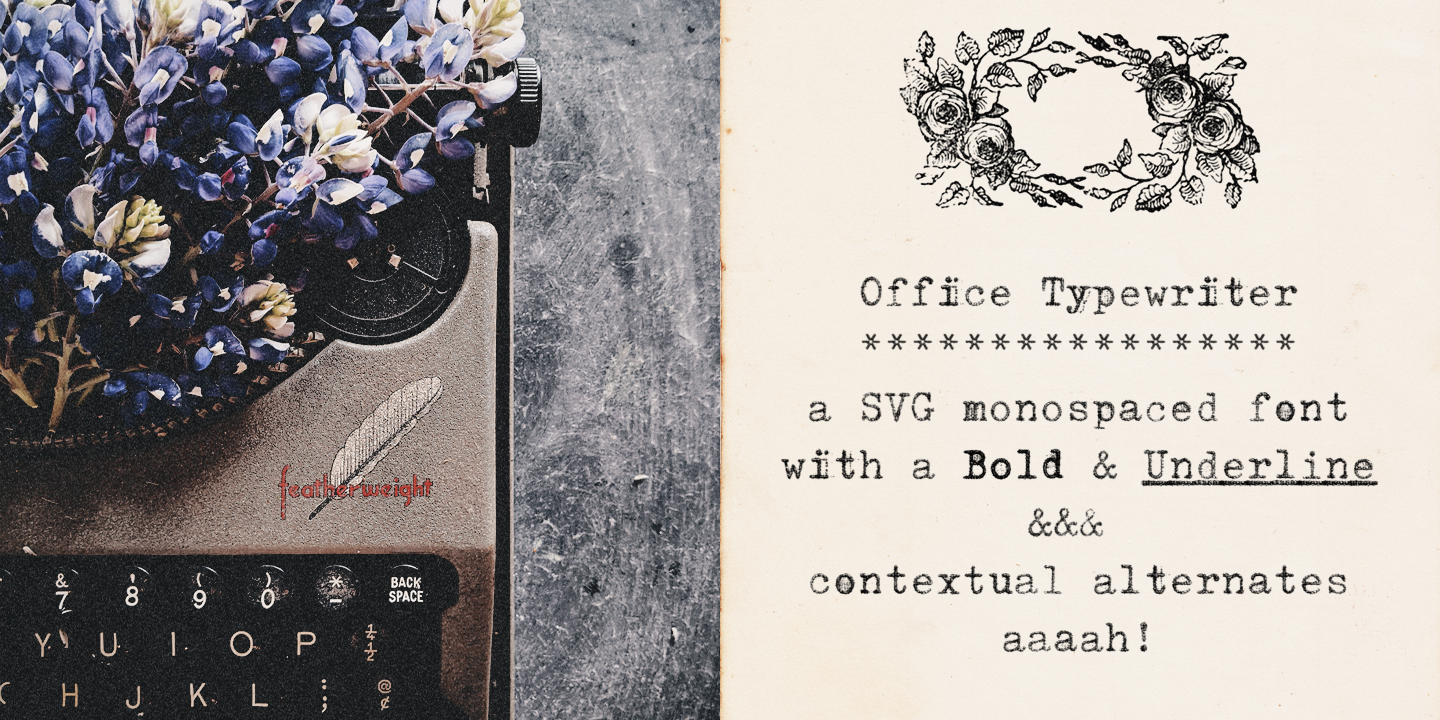
The Office Typewriter Font is an excellent choice for designs that aim for a classic, nostalgic, and authentically vintage aesthetic, reminiscent of old office documents and literary manuscripts. Imagine it gracing the cover of a retro-themed novel, adding an authentic touch to historical documents, or bringing a charmingly analog feel to modern digital content. It's also perfectly suited for indie film titles, creative writing blogs, personalized stationery, and any project where you want to convey a sense of history, authenticity, and a unique, personal touch. Its often monospaced, slightly imperfect forms, and distinctive character make it ideal for conveying sincerity and a bygone era's charm.
What makes the Office Typewriter Font so exciting is its ability to instantly transport an audience back to a time of mechanical precision and tactile writing. It frequently features the characteristic unevenness and subtle ink bleed of a real typewriter, making it feel organic and full of character. This font has a timeless and distinctive personality that can instantly elevate your design, making it feel both quaint and remarkably authentic. It’s designed to capture attention with its unassuming beauty, ensuring your message is not just seen, but felt with a sense of delightful nostalgia.
The Office Typewriter Font family typically might be offered in a few key weights to best maintain its distinctive character, possibly including stylistic alternates or unique ligatures that enhance its authentic typewriter appeal. Its primary focus is usually on its distinctive visual impact rather than extensive weight ranges. These variations empower designers to create a truly inviting and memorable display, ensuring the Office Typewriter Font Free Download can adapt to a wide array of projects while maintaining its signature, classic charm.